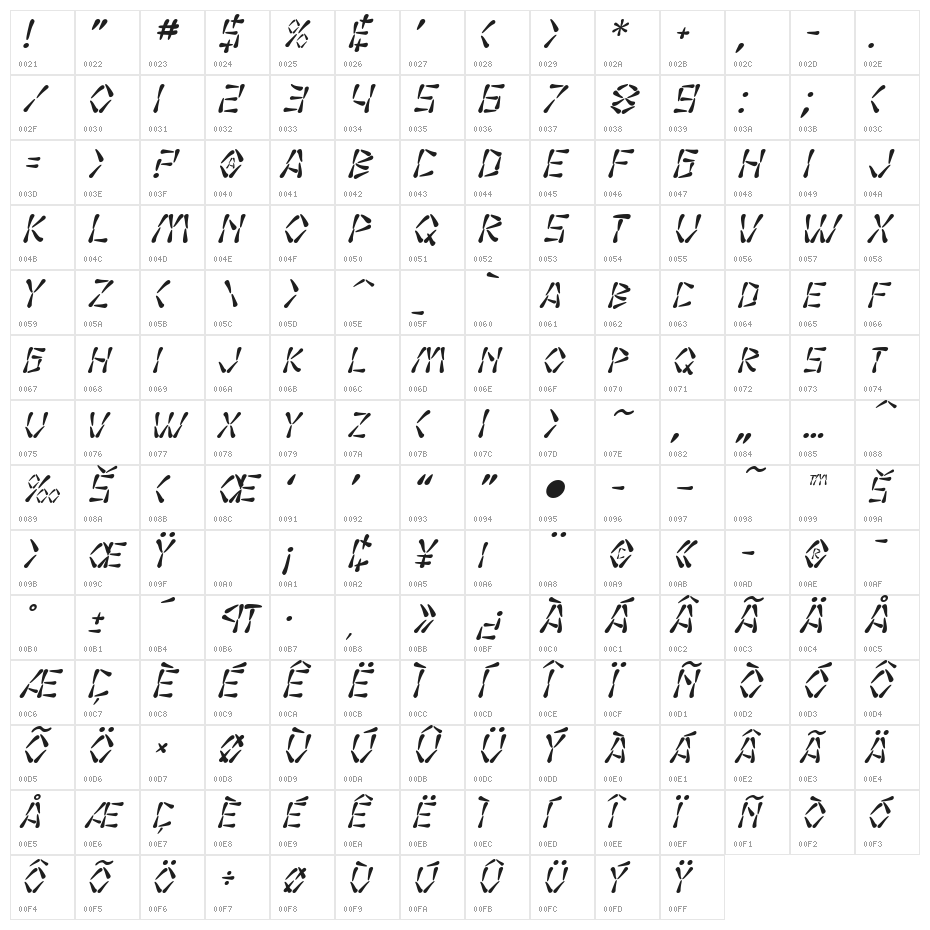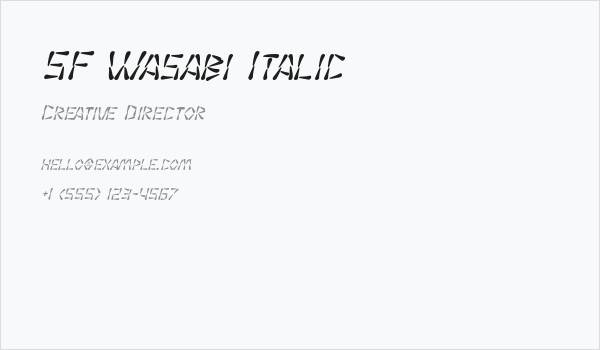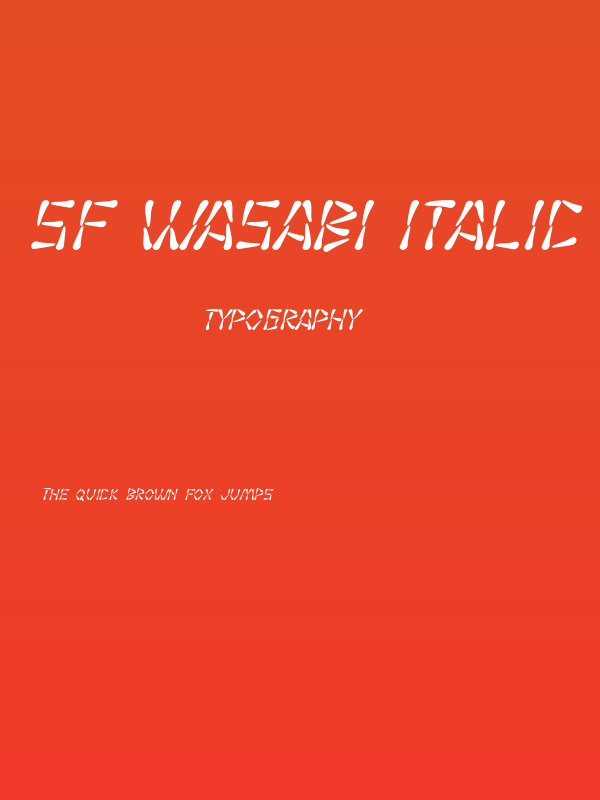
SF Wasabi Italic Font
SF Wasabi Italic Description
This font features a dynamic and energetic style, characterized by its italicized and angular letterforms. The strokes are bold and slightly slanted, giving a sense of movement and modernity. Each character is distinct, with sharp edges and a unique geometric flair that adds a contemporary touch. The font maintains a consistent weight throughout, ensuring readability while still offering a decorative appeal. Its design is both eye-catching and versatile, making it suitable for various creative applications. The special characters are equally stylized, complementing the overall aesthetic.
| Proposed Projects | Ideal for branding, headlines, posters, and any project requiring a modern and dynamic typeface. |